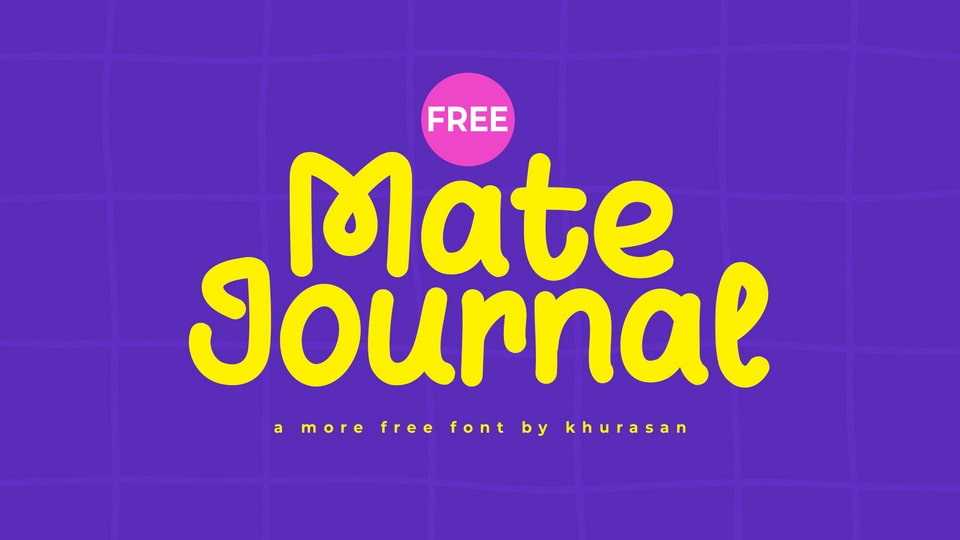
Download Mate Journal font, a quirky and expressive handwritten typeface that feels like a personal note from a friend. Its casual strokes and playful forms.